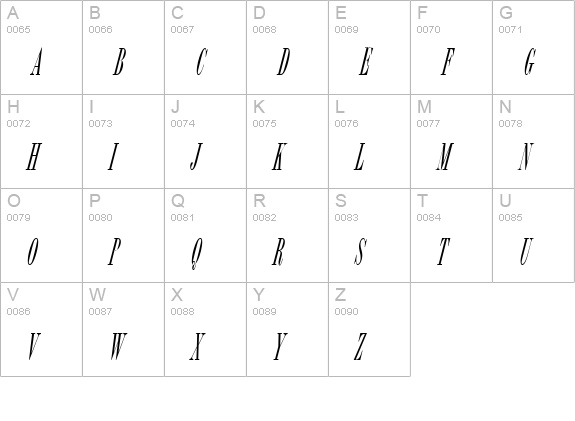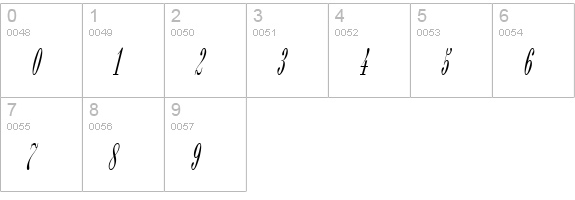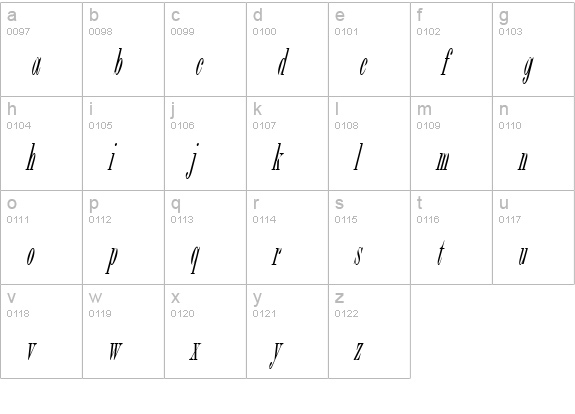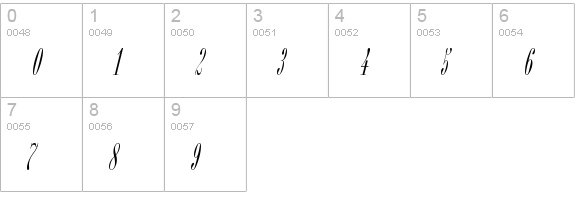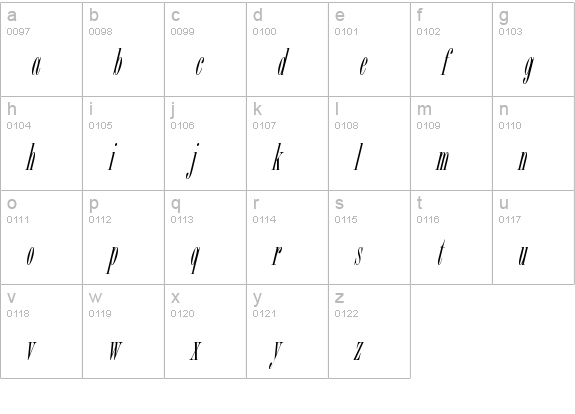
Bordeaux Italic Plain is a distinctive, italic variant in the Bordeaux typeface family \xE2\x80\x94 well suited to design and typography projects.
Introducing Bordeaux Italic Plain font - a captivating and elegant typeface that exudes sophistication and charm. With its sleek lines, delicate curves, and stylish flair, Bordeaux Italic Plain adds a touch of class to any design project. This versatile font is perfect for both headlines and body text, making it a must-have in any designer's toolkit. The best part? Bordeaux Italic Plain is completely free to download at FontsMarket.com, making it accessible to all creatives looking to elevate their work with a touch of luxury. Whether you're working on a branding project, editorial design, or any other creative endeavor, Bordeaux Italic Plain is sure to make a statement and leave a lasting impression. Download Bordeaux Italic Plain today and add a touch of sophistication to your designs with this exquisite font that is as beautiful as it is versatile.